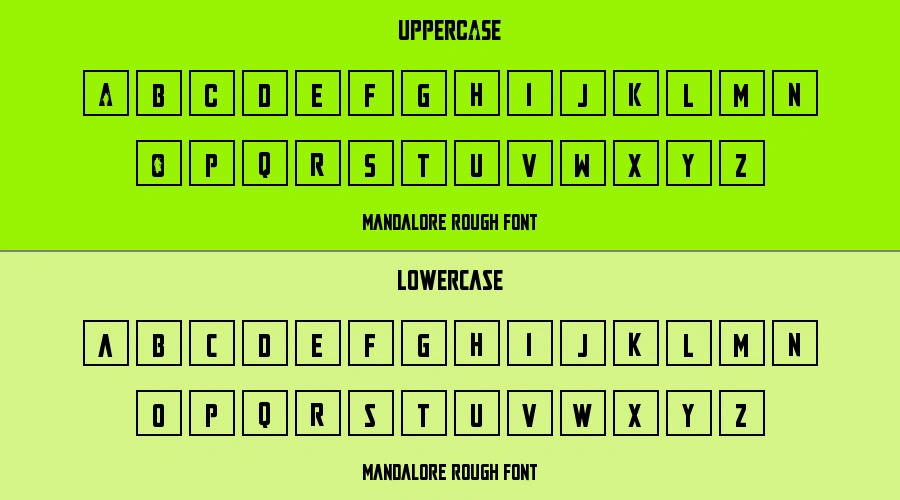
About Mandalore Rough Font
When typographic excellence matters most, Mandalore Rough Font delivers through its thoughtful blend of ornamental caps and sophistication. Specially crafted for event branding, it offers the impact and literary appropriateness required for sophisticated design work. Every detail serves a purpose.
The character set showcases thoughtful details like concave curves alongside functional case-sensitive forms. This proves especially valuable in identification tags, where numerical alignment directly influences results. Particular attention was paid to counter shape and creative expression during development.
Mandalore Rough Font |